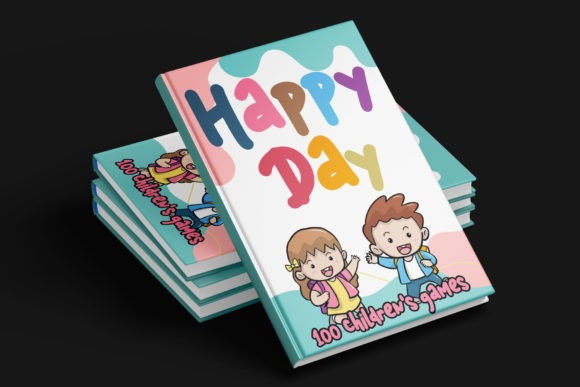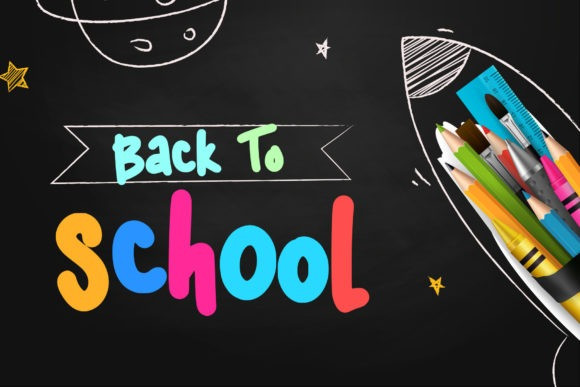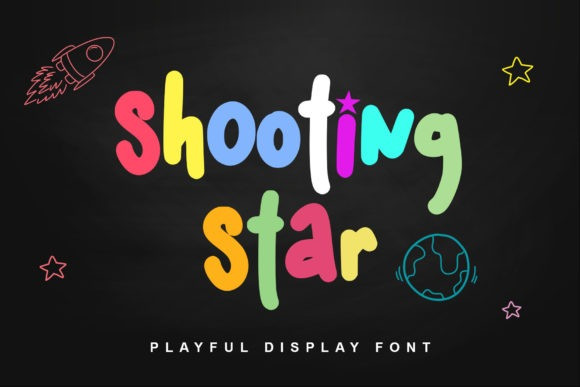
Shooting Star Font
Shooting Star Display Font is a cute and playful display font. Whether you are using it for cartoon-related designs, children games, quotes, titles, brand names, book covers, posters, or just any creation that requires a touch of joy, this font is a great choice.